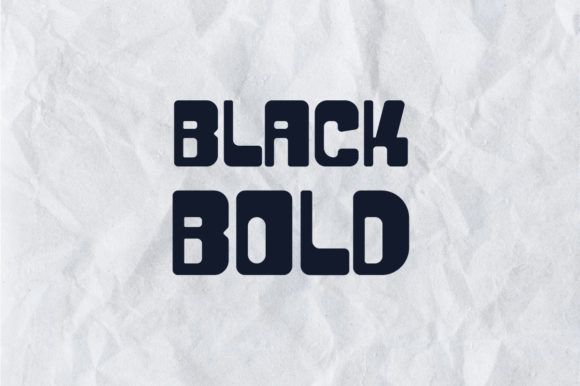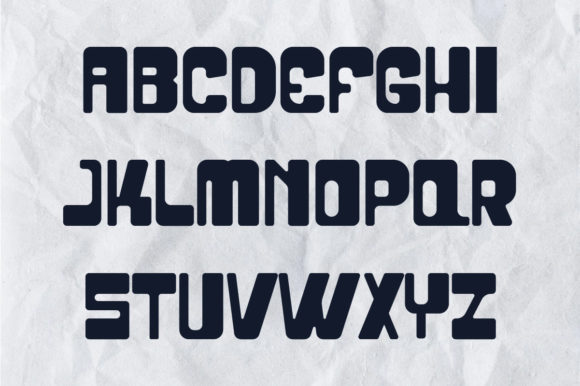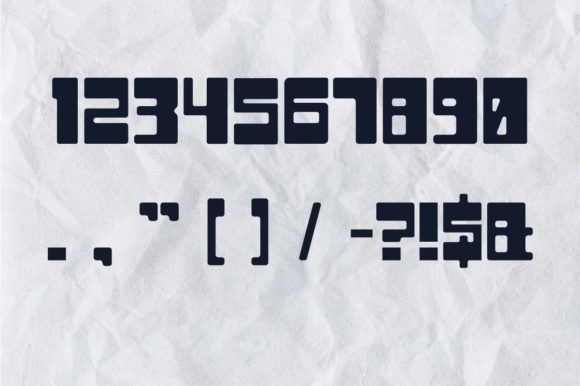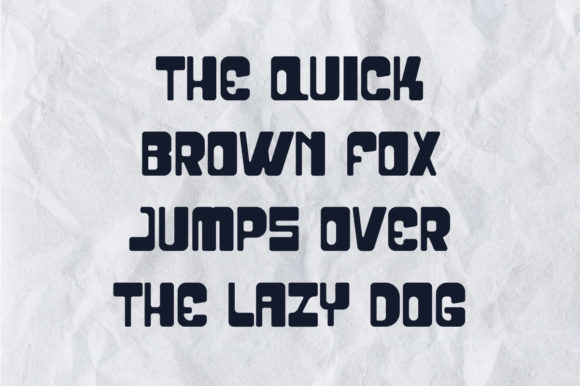
Introducing Antusias Bold Display Font: Elevate Your Designs with a Cool and Versatile Typeface
Are you tired of using the same old fonts for your designs? Look no further! Antusias Bold Display Font is here to take your visual creations to the next level. This stunning typeface is perfect for designers and crafters who want to add a touch of excitement and personality to their work. In this article, we’ll dive into the features and benefits of Antusias Bold Display Font, and explore how you can use it to elevate your designs.
What is Antusias Bold Display Font?
Antusias Bold Display Font is a bold and eye-catching typeface that’s designed to make a statement. With its unique and modern aesthetic, this font is perfect for creating visually striking designs that grab attention. Whether you’re working on a logo, poster, sticker, invitation card, or brochure, Antusias Bold Display Font is the perfect choice.
Key Features of Antusias Bold Display Font
- Bold and Eye-Catching: Antusias Bold Display Font is designed to make a statement. Its bold and chunky letters are perfect for creating designs that stand out from the crowd.
- Versatile: This font is incredibly versatile and can be used for a wide range of design projects, from logos and posters to stickers and brochures.
- Modern Aesthetic: Antusias Bold Display Font has a modern and fresh aesthetic that’s perfect for designers who want to create contemporary and stylish designs.
- Easy to Read: Despite its bold and chunky design, Antusias Bold Display Font is surprisingly easy to read, making it perfect for designs that require a clear and concise message.
Benefits of Using Antusias Bold Display Font
So, why should you choose Antusias Bold Display Font for your designs? Here are just a few benefits of using this amazing typeface:
- Adds Personality to Your Designs: Antusias Bold Display Font is the perfect way to add a touch of personality and style to your designs. Its unique and modern aesthetic ensures that your designs will stand out from the crowd.
- Perfect for Branding: With its bold and eye-catching design, Antusias Bold Display Font is perfect for creating logos and branding materials that make a statement.
- Increases Engagement: The bold and chunky design of Antusias Bold Display Font is sure to grab attention and increase engagement. Whether you’re creating a poster, sticker, or invitation card, this font is sure to get noticed.
How to Use Antusias Bold Display Font
So, how can you use Antusias Bold Display Font in your designs? Here are a few ideas to get you started:
- Logos: Use Antusias Bold Display Font to create a bold and eye-catching logo that makes a statement.
- Posters: Create stunning posters that grab attention with Antusias Bold Display Font.
- Stickers: Add a touch of personality to your stickers with Antusias Bold Display Font.
- Invitations: Create beautiful and stylish invitations with Antusias Bold Display Font.
- Brochures: Use Antusias Bold Display Font to create visually striking brochures that showcase your brand or product.
In conclusion, Antusias Bold Display Font is an amazing typeface that’s perfect for designers and crafters who want to add a touch of excitement and personality to their work. With its bold and eye-catching design, versatility, and modern aesthetic, this font is sure to elevate your designs and make them stand out from the crowd. So why wait? Download Antusias Bold Display Font today and start creating stunning designs that grab attention!